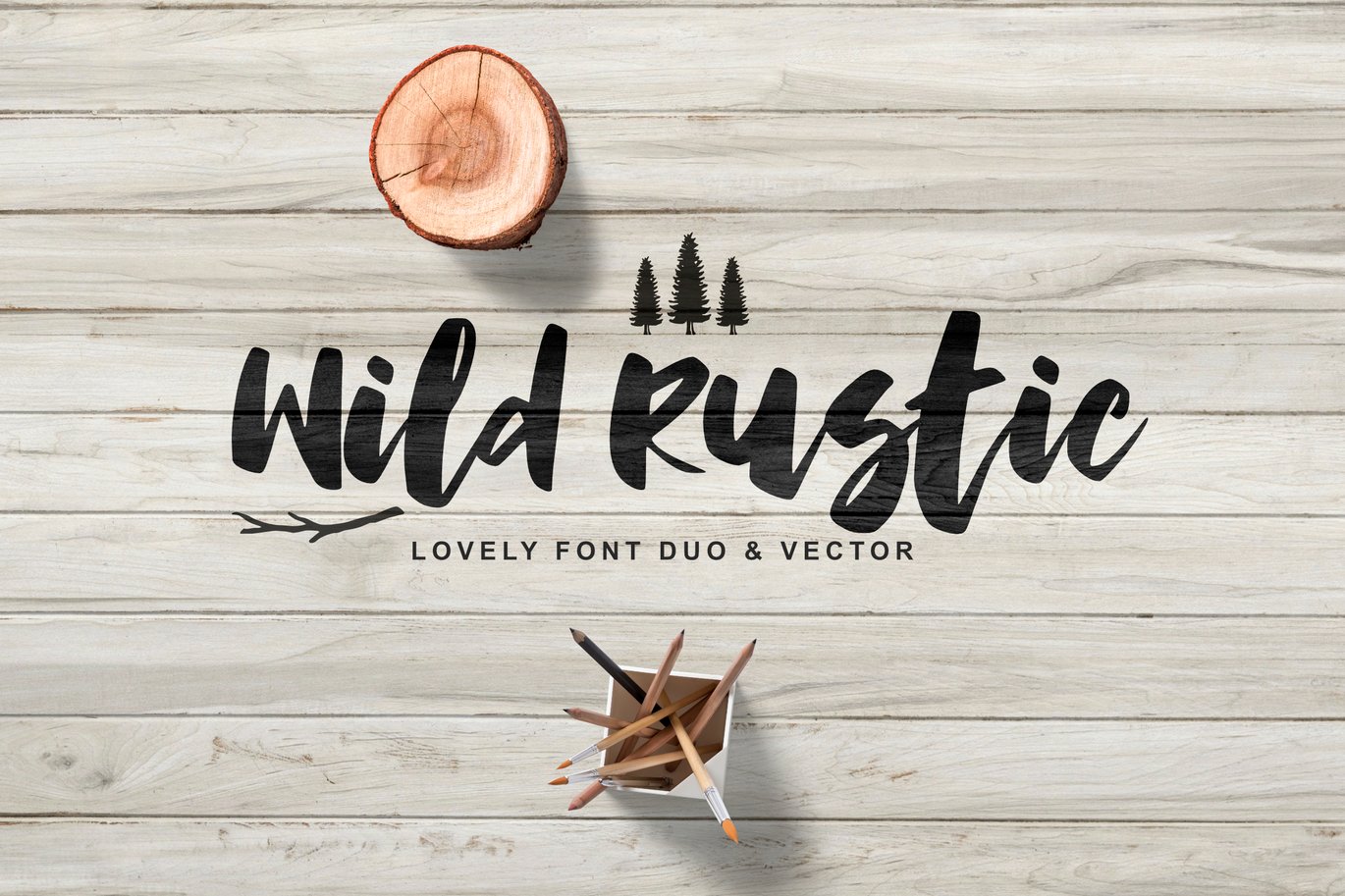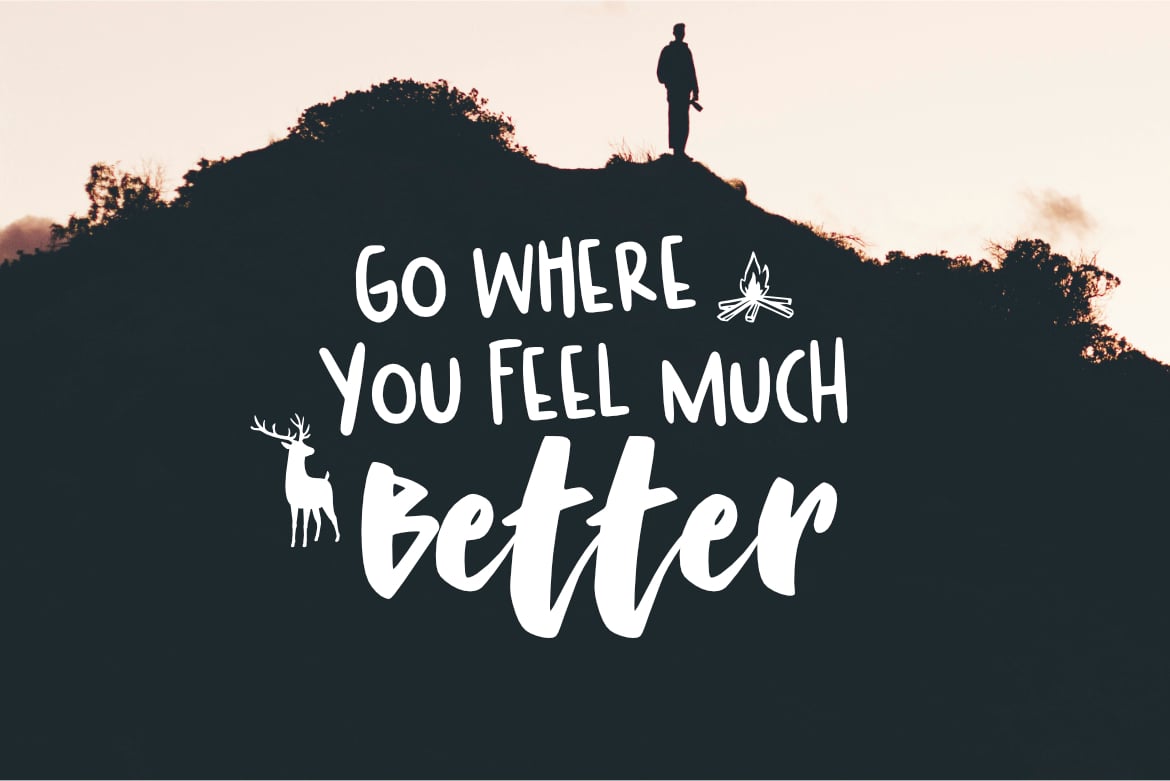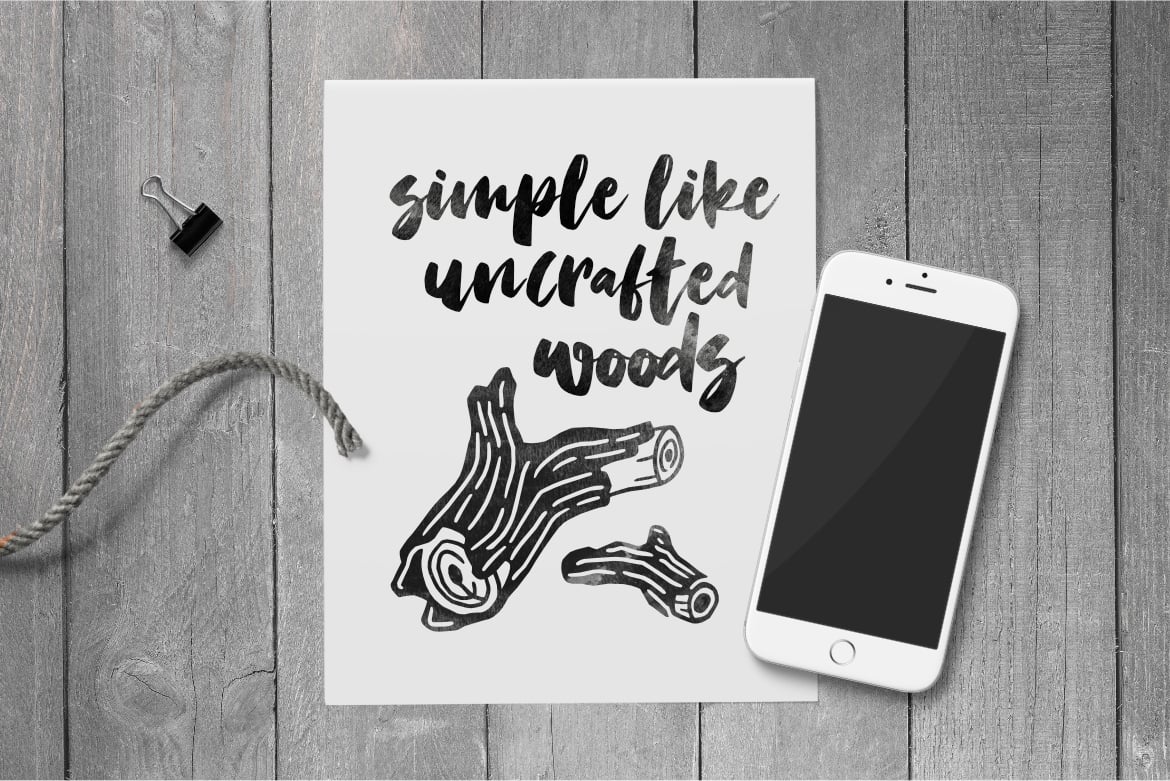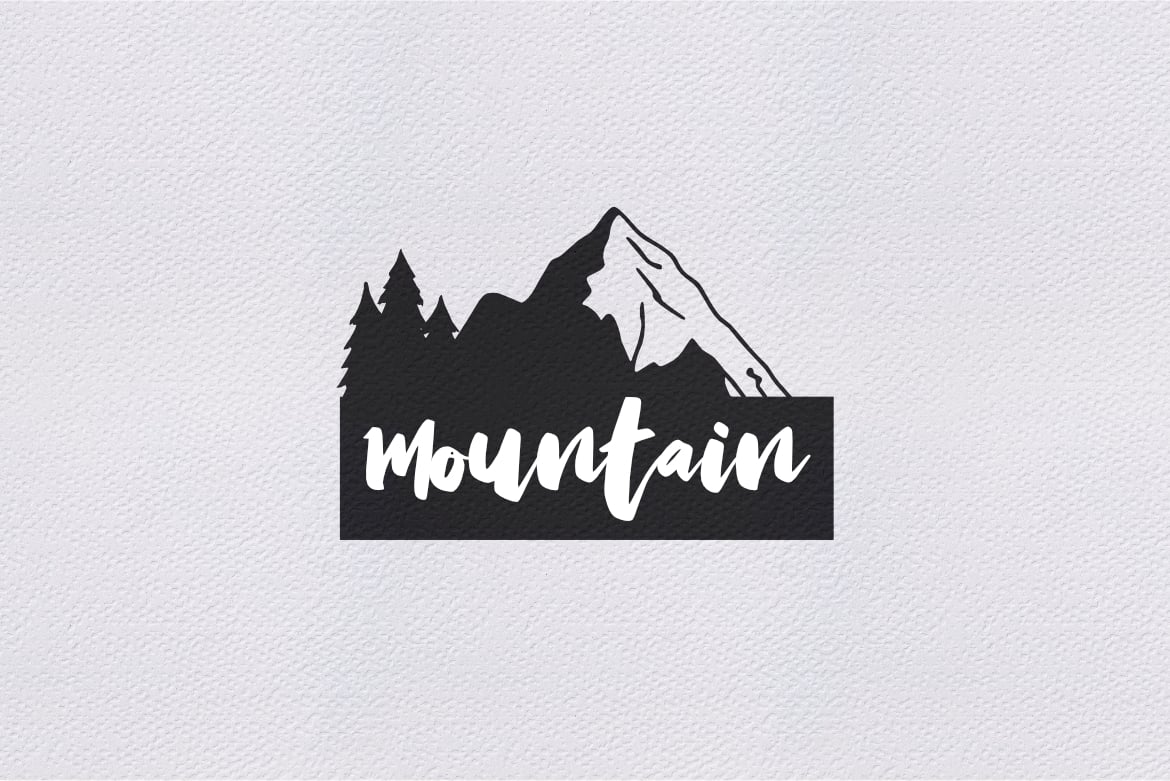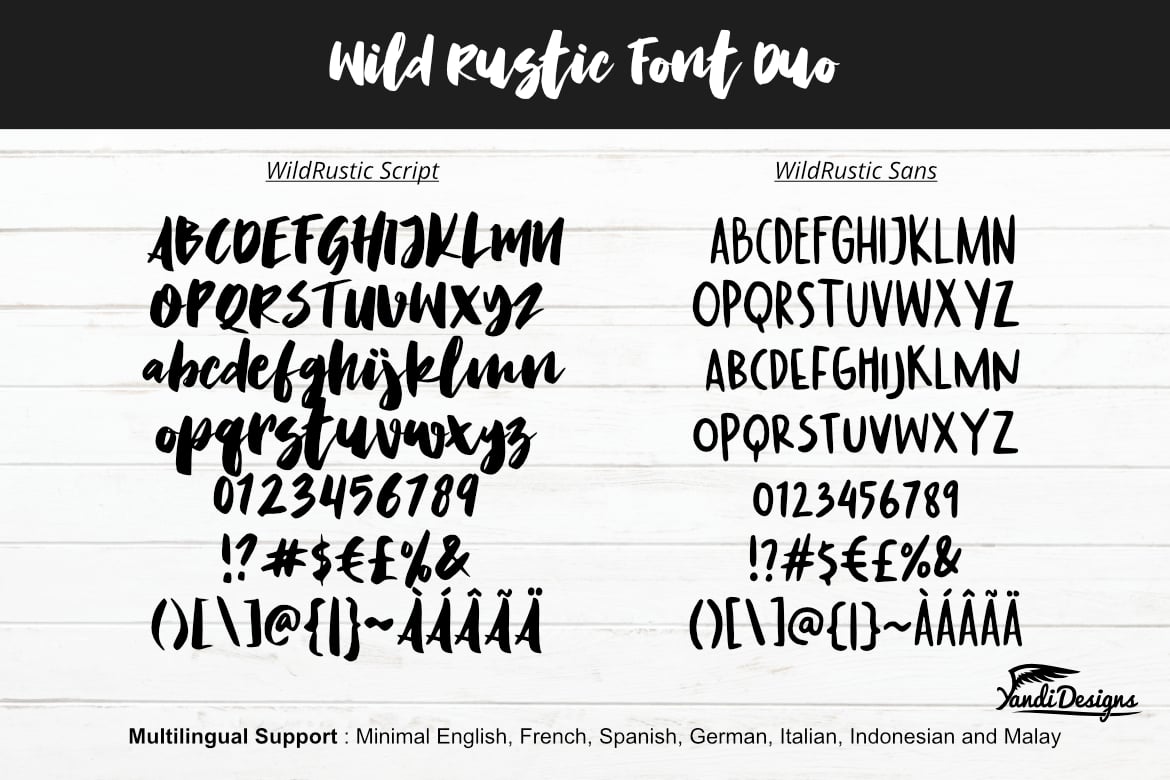
Wild Rustic Font Duo
Wild Rustic Fonts with Illustrations
Wild Rustic is modern brush script font, suitable for many project children book, quotes, logo , heading , title etc. With handmade illustration of wood logs, trees, mountain, deer that looks awesome to combine with the font duo.
Basic Latin (Standard English character , number, symbol)
Multilingual Support (minimal English, French, Spanish, German, Italian, Indonesian, Malay)